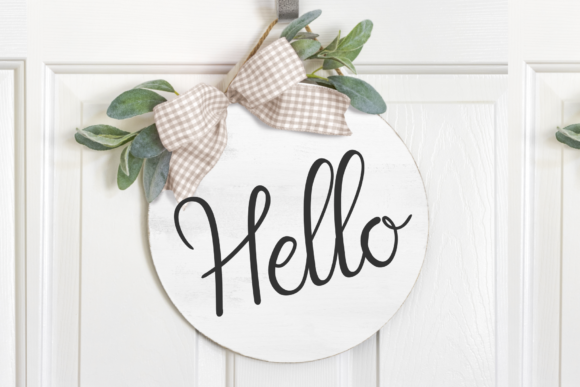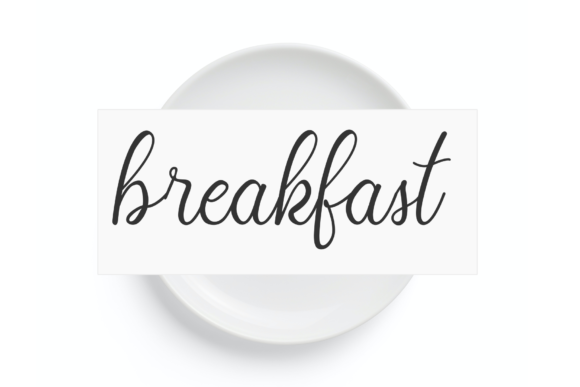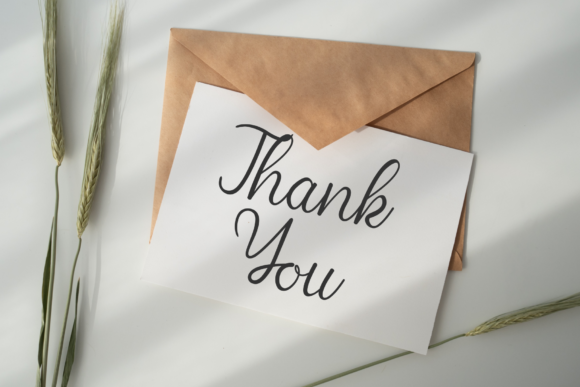
Melisa Font
About Melisa Font
Melisa is a well balanced and delicate script font that exudes elegance and class. This font was particularly crafted for those who need a beautiful and refreshing look to their designs.